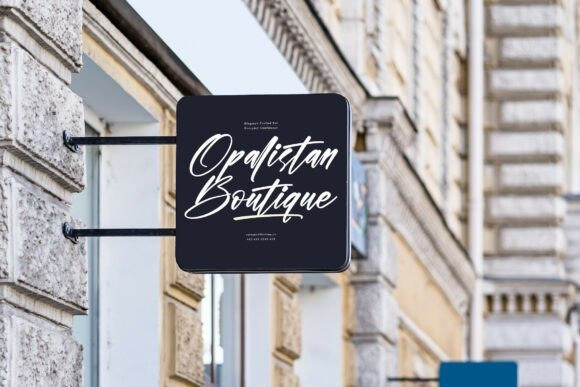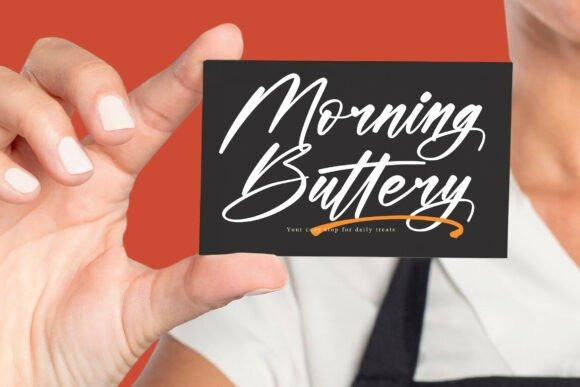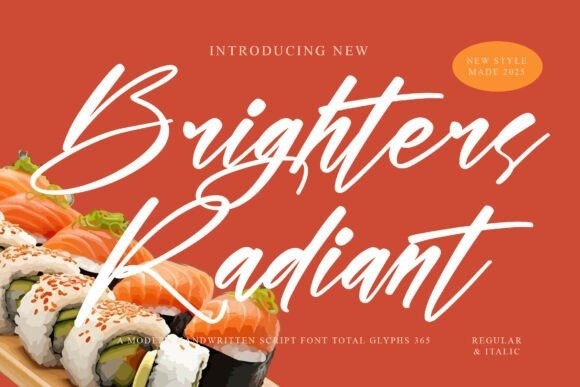
Brighters Radiant Font
Brighters Radiant Font is an instantly appealing and beautifully flowing modern handwritten script font that radiates a delightful energy, making it an excellent choice for food, lifestyle, and feminine branding projects.
This charming Brighters Radiant typeface features a casual, expressive flow, maintaining a natural written look while ensuring excellent readability. The inclusion of both Regular and Italic styles, along with 365 total glyphs, offers excellent versatility for various design layouts.
Perfect for restaurant branding, food packaging, wedding stationery, and elegant social media graphics, the Brighters Radiant font brings a bespoke, personal, and friendly touch to any design. This high-quality script font is a radiant and versatile option for conveying warmth, elegance, and approachable style.